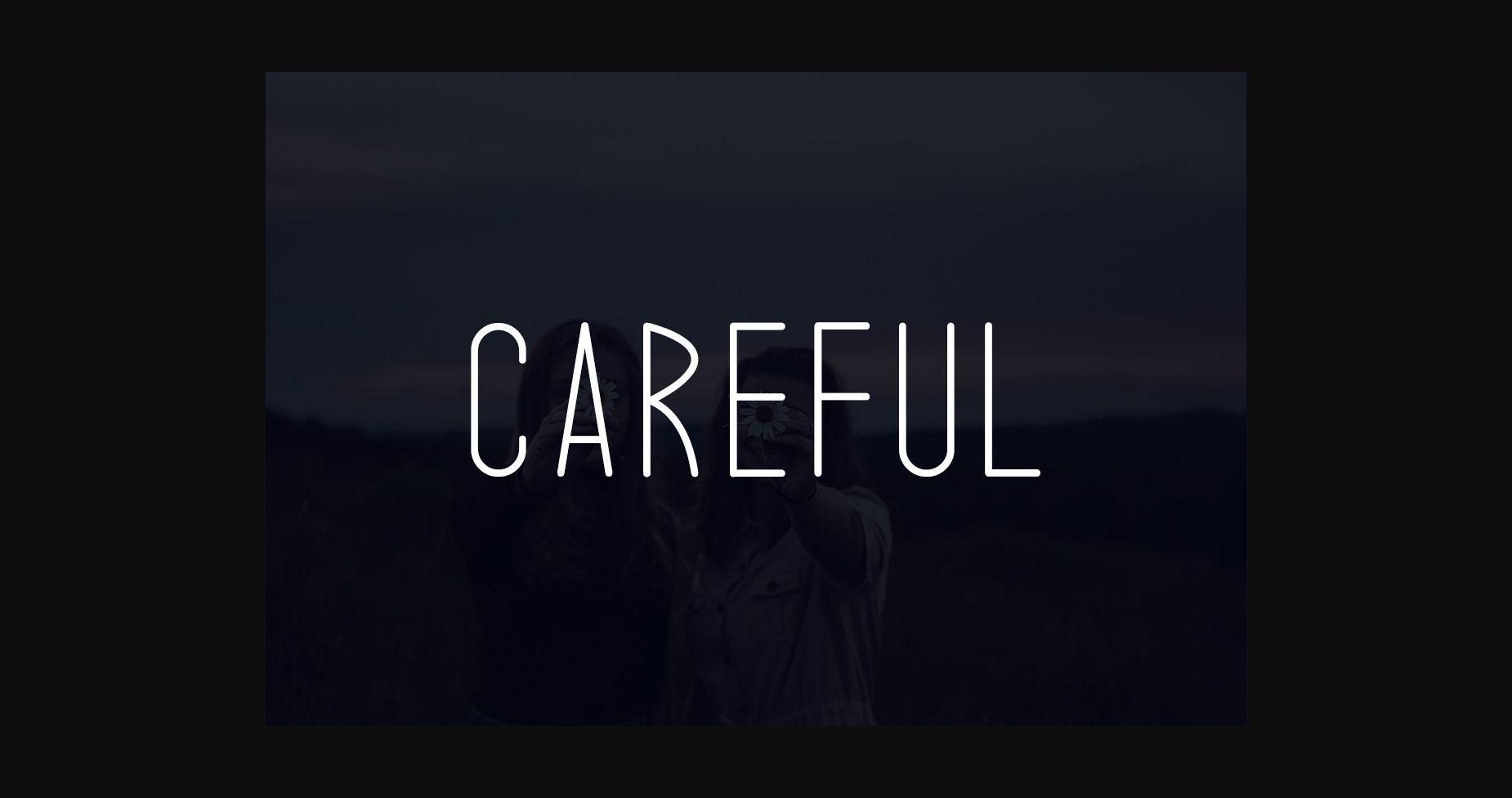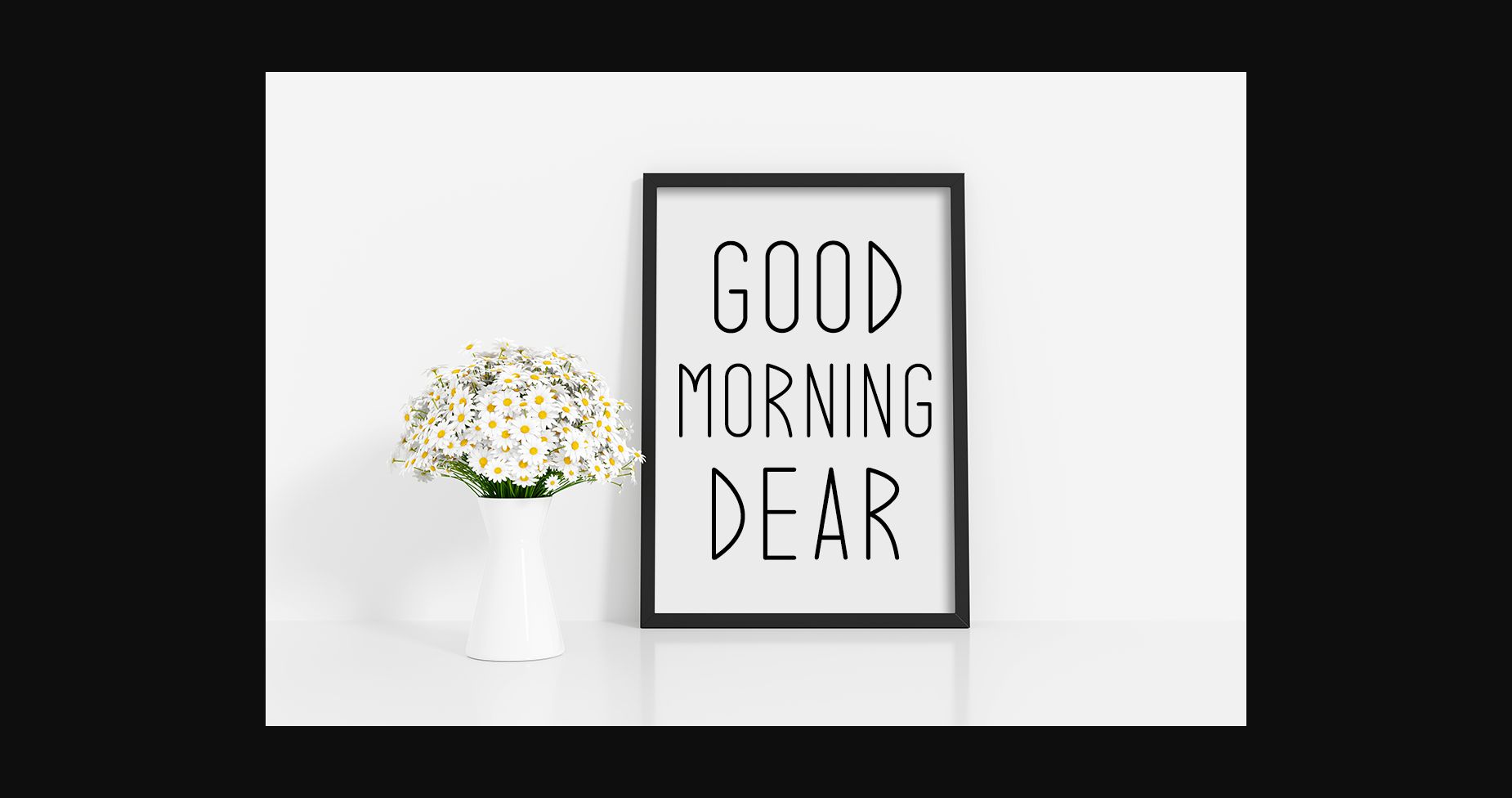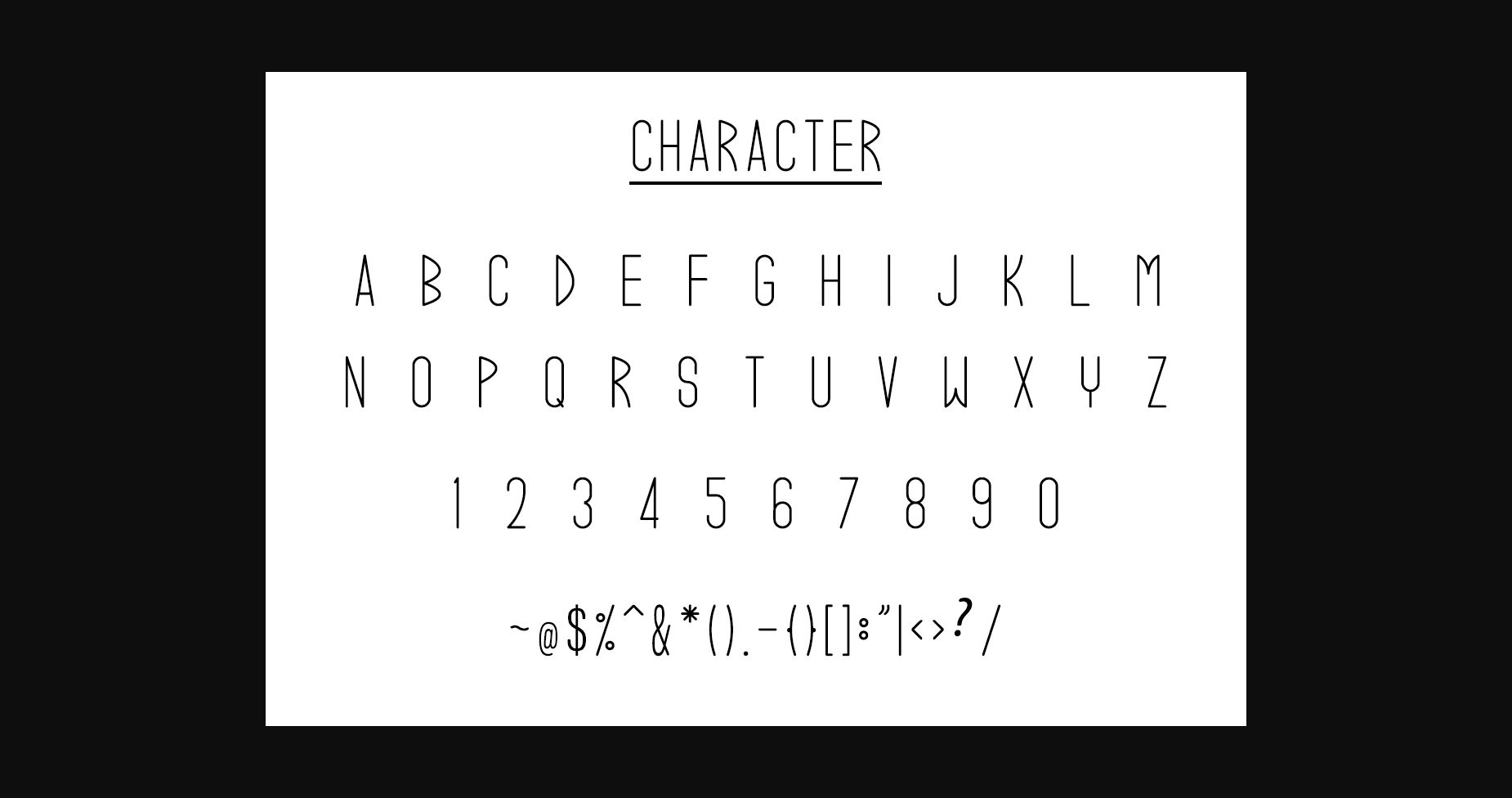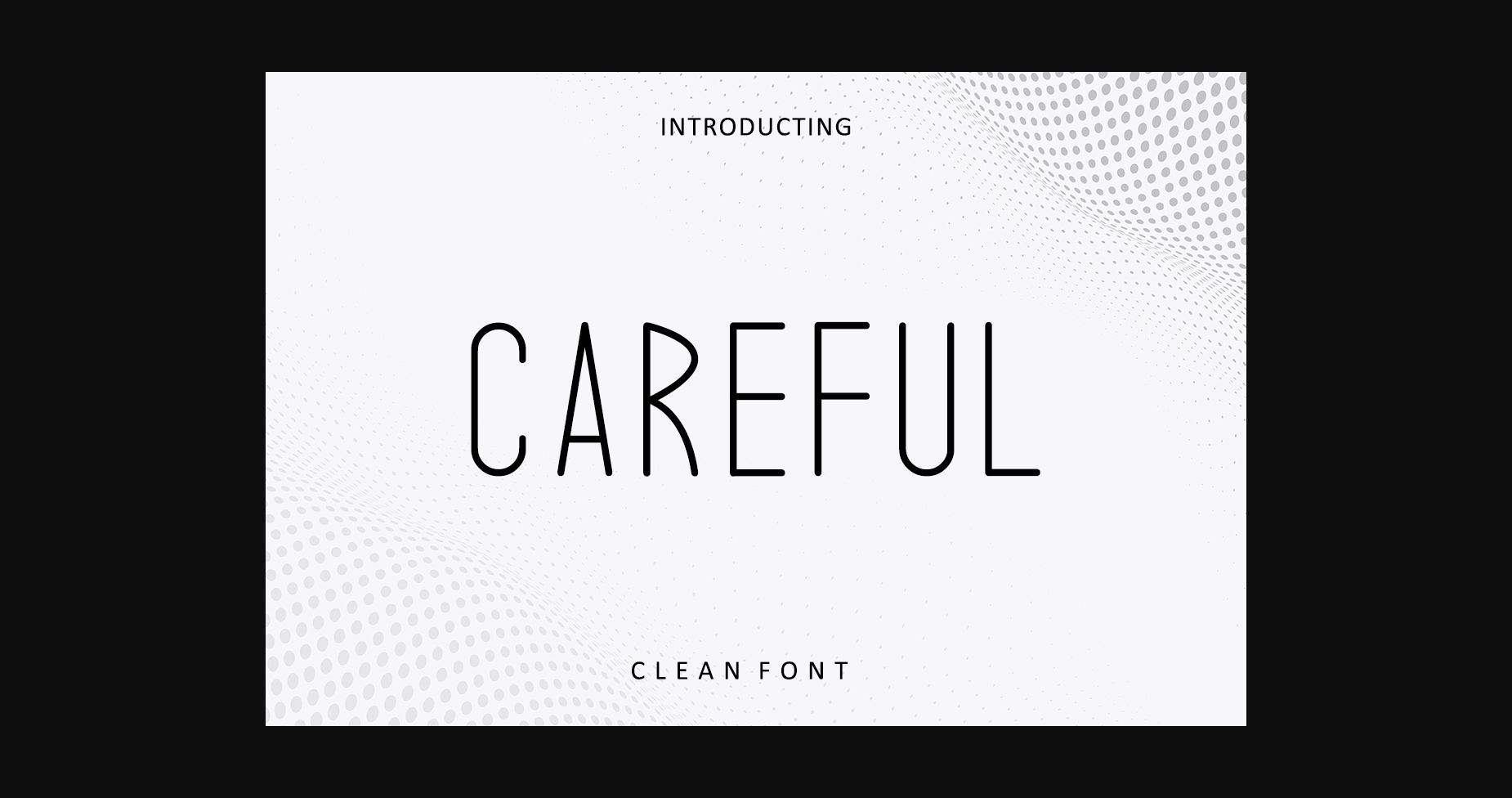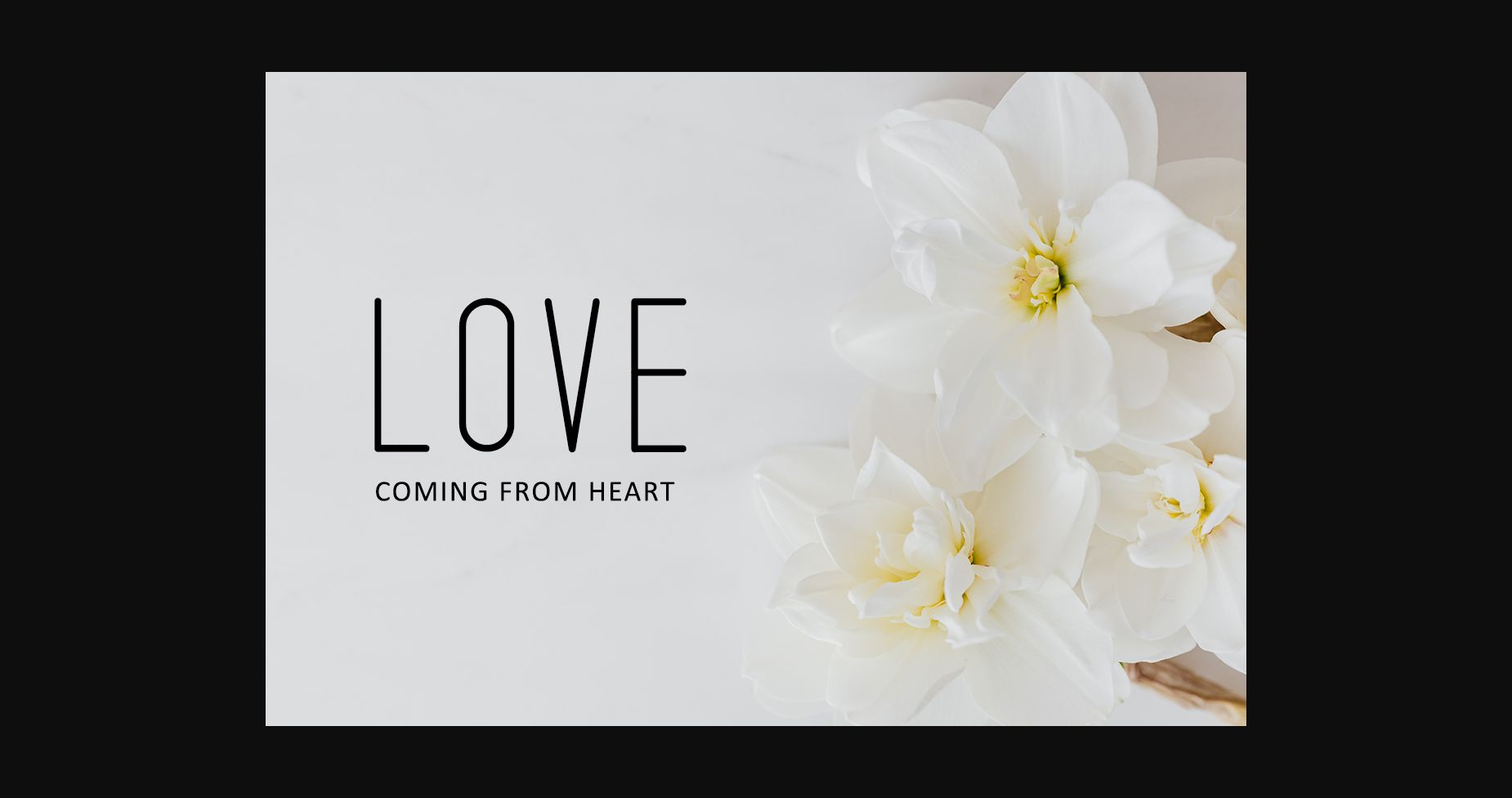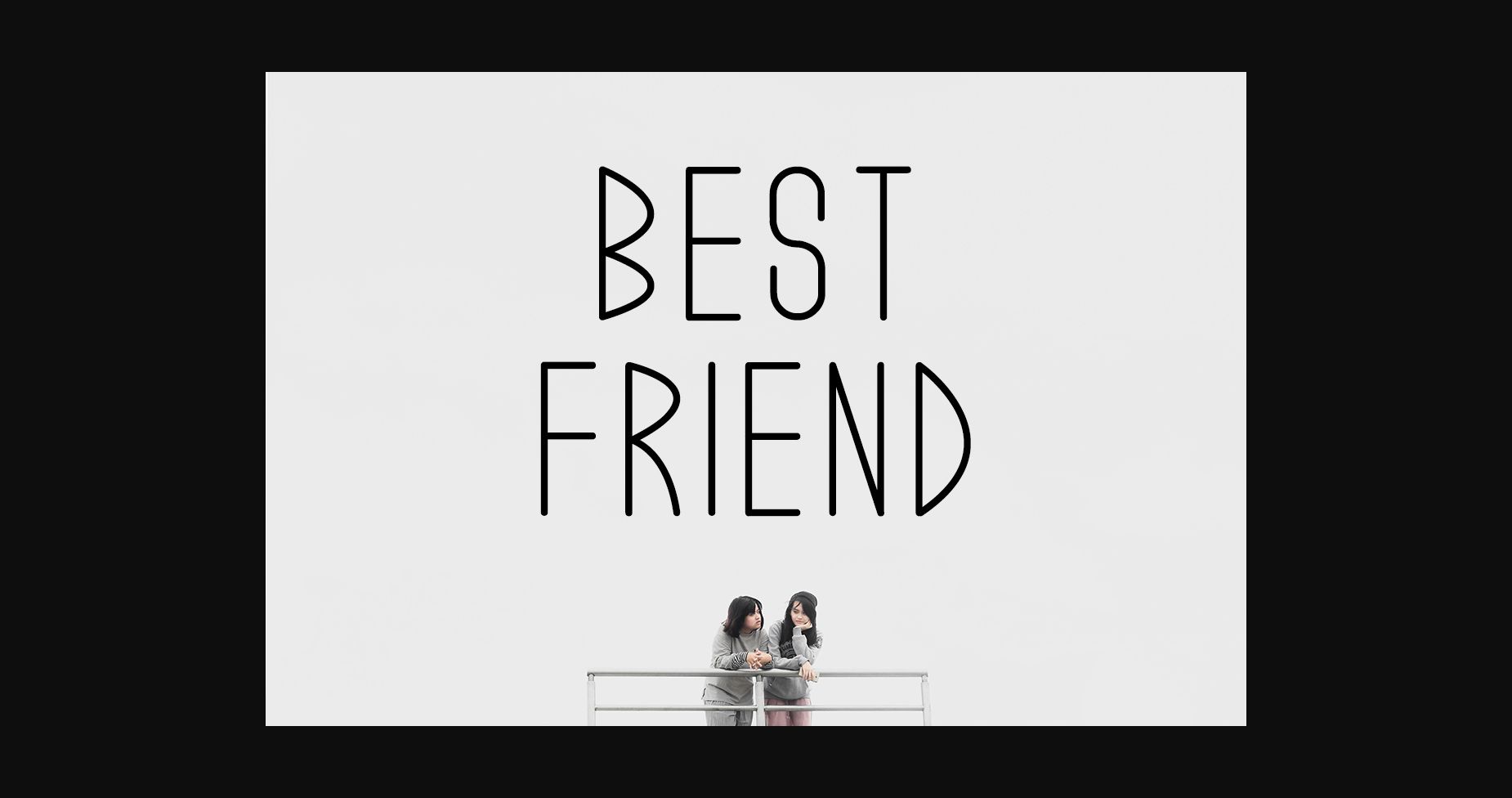
Careful Font
About Careful Font
Careful is a clean and neat sans serif font. It can easily be matched to an incredibly large set of projects, so add it to your creative ideas and notice how it makes them stand out!